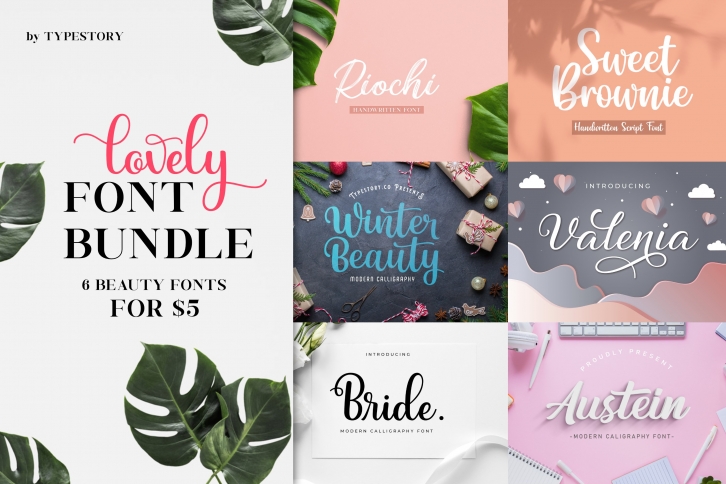
Lovely Bundle by Typestory is a trendy and unique font with an authentic style. It was designed by Typestory and it's a great choice for creative people who need such a font. It was released on November 10, 2020 and the file size is 1.84 MB. Lovely Bundle by Typestory will add an organic vibe to any design idea!